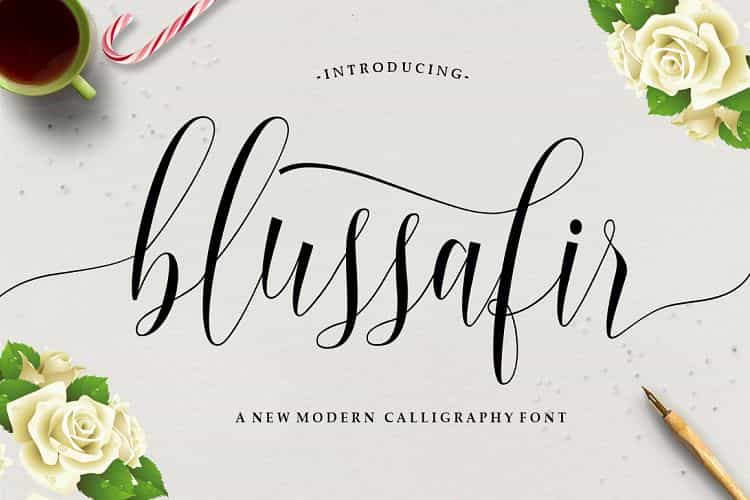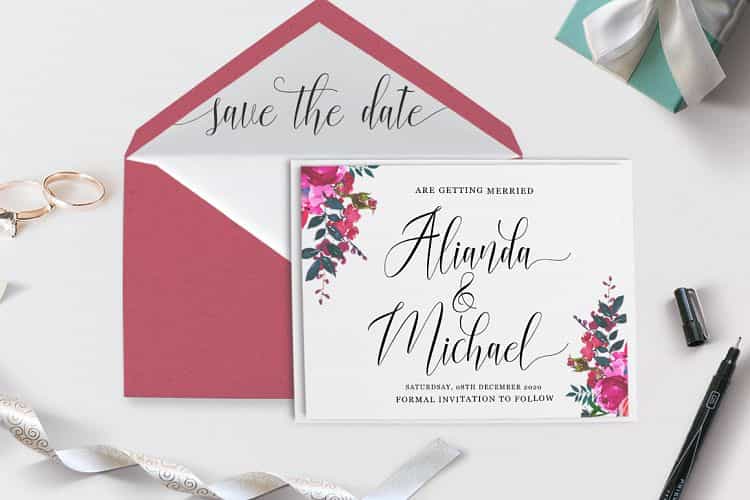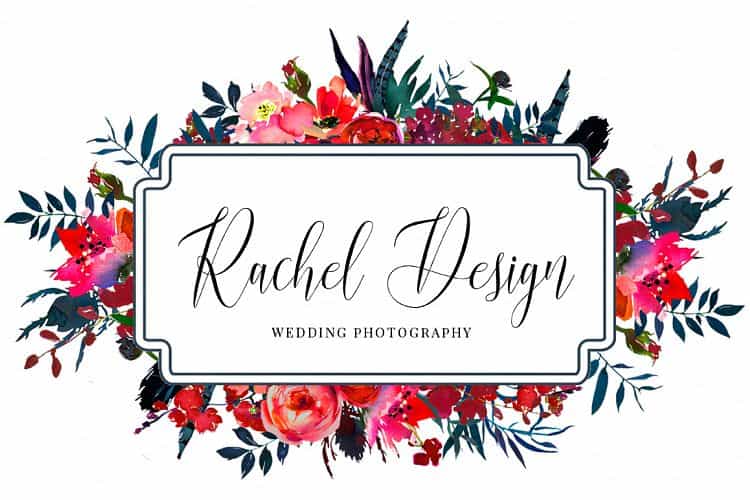
Introducing Blussafir Font. It is created and distributed by Great Studio. Blussafir Script Font is a modern calligraphy design that has the Regular option too. This font is very relaxed and elegant with the swashes. Can be used in many different ways. and others are logo, product packaging, wedding invitations, branding, headlines, signage, labels and so on.